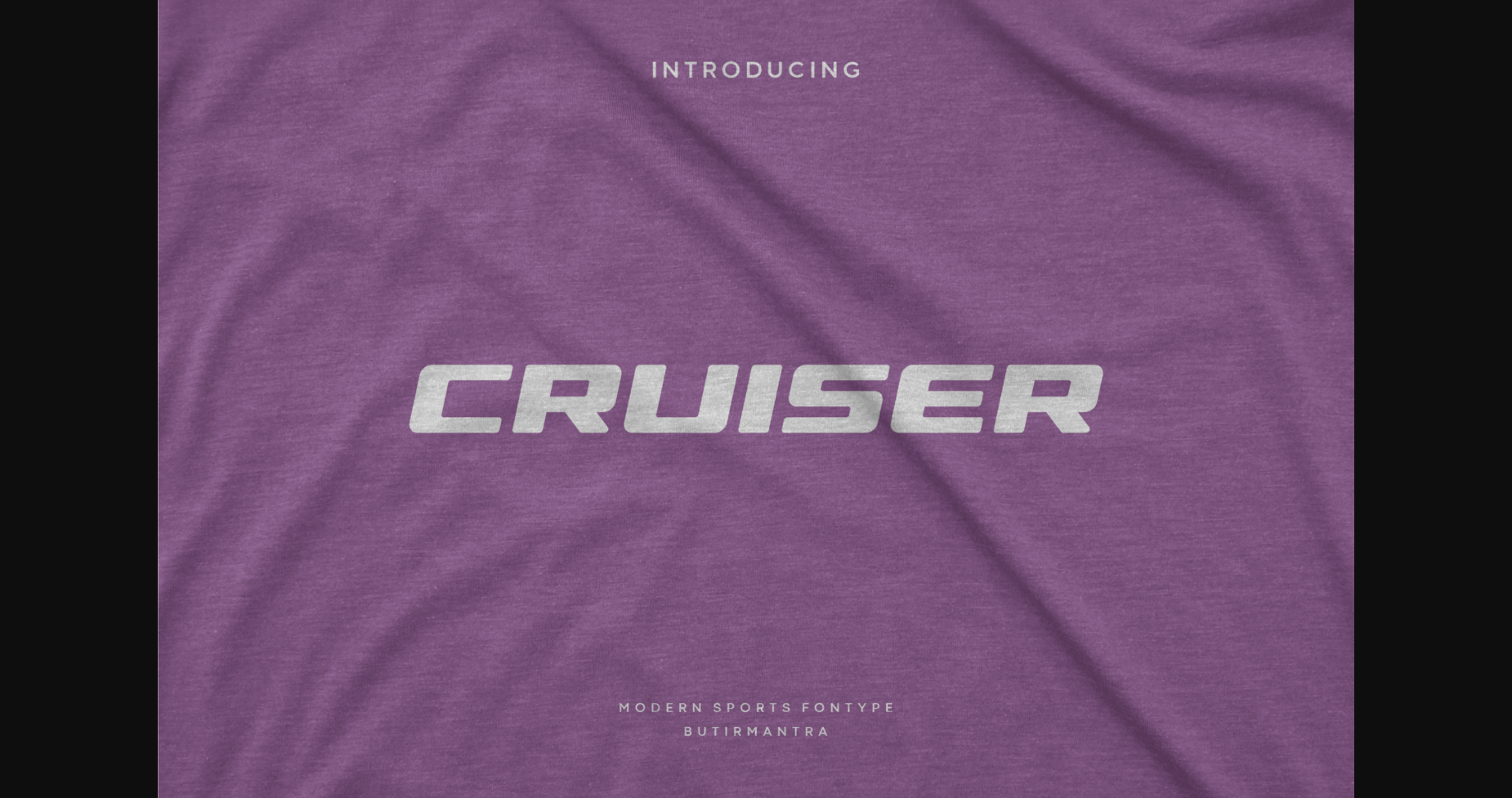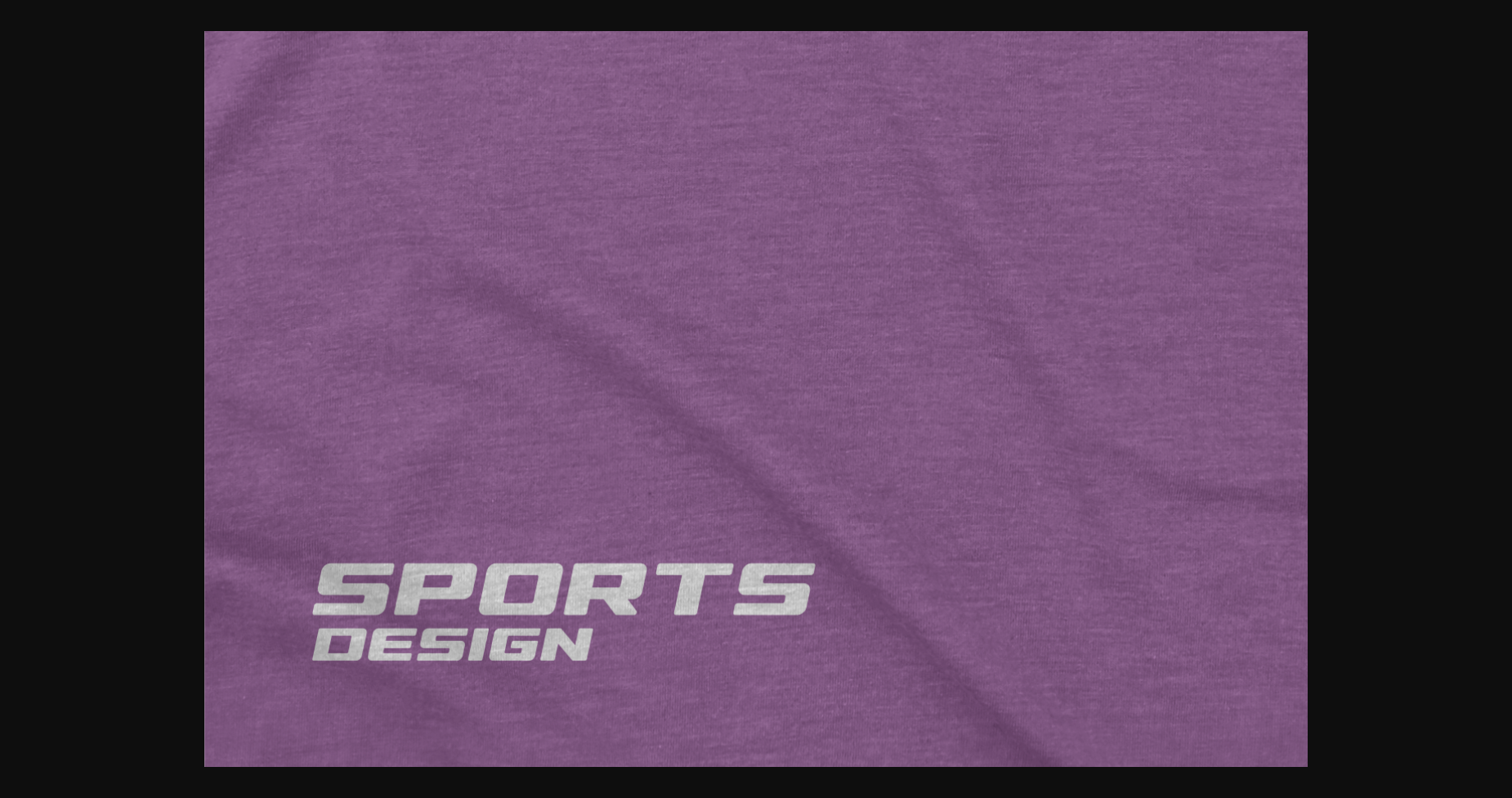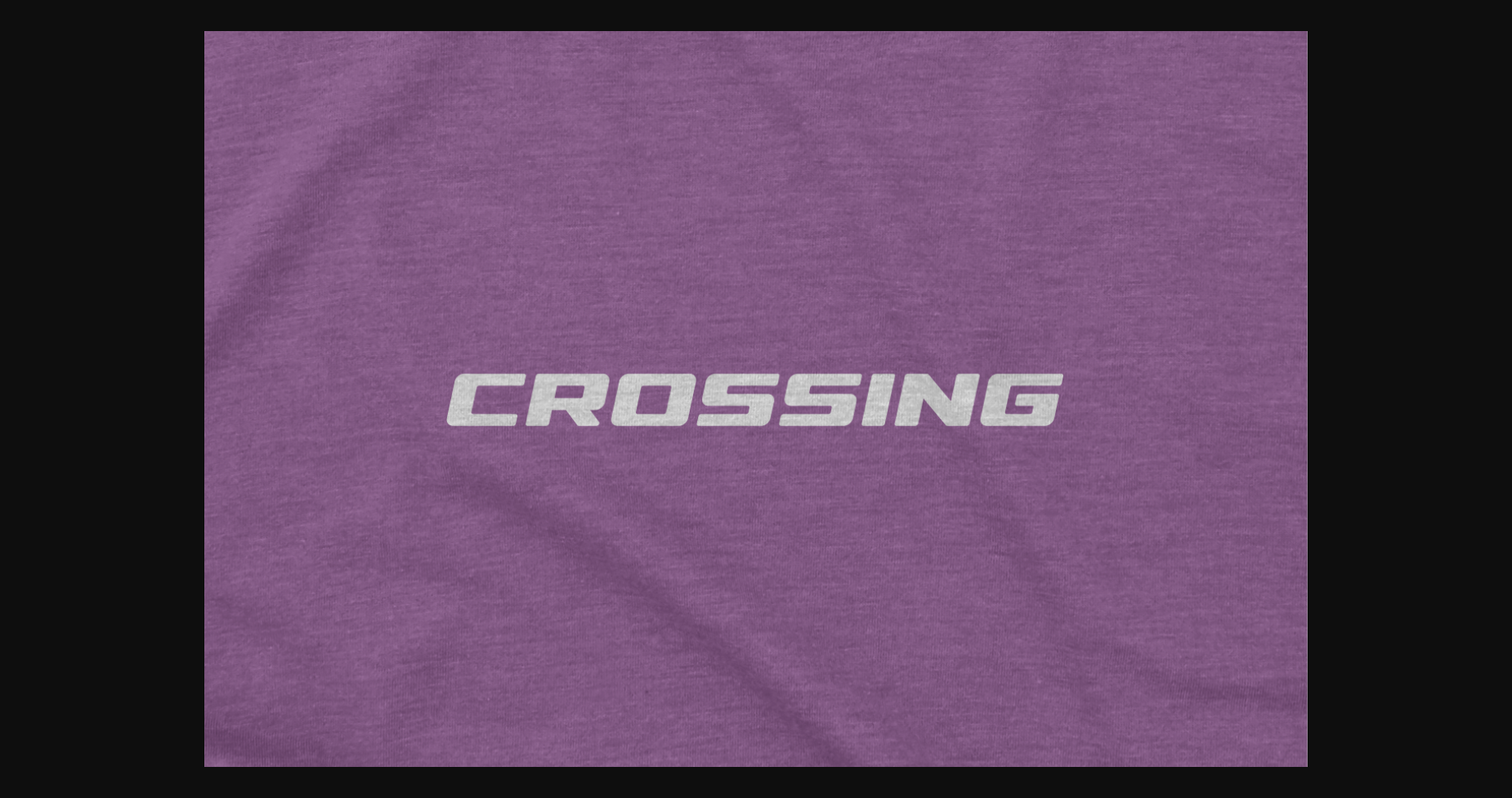
Cruiser Font
About Cruiser Font
Cruiser is a modern, sports-themed sans serif font. This font would be ideal for web design, business cards, or just about anything else that requires a unique touch.